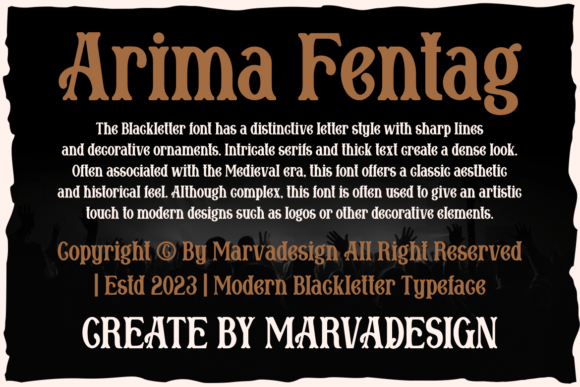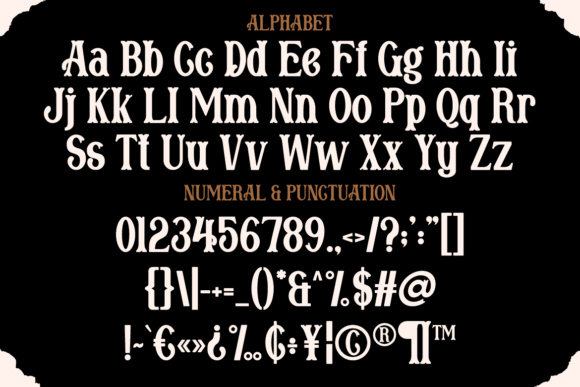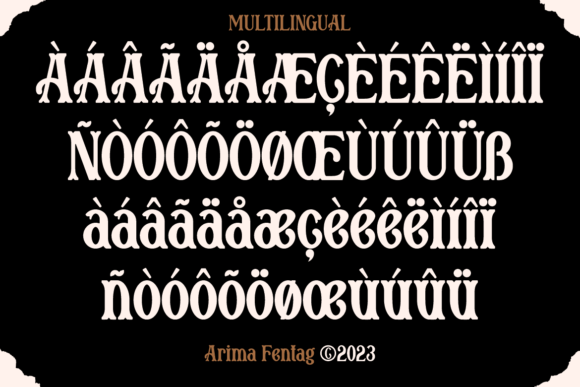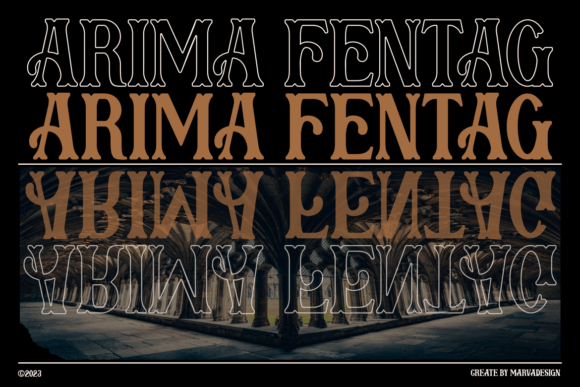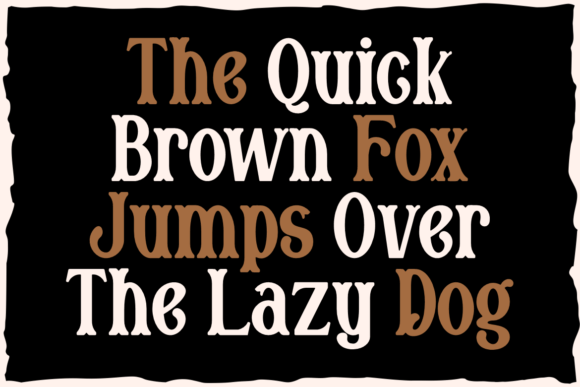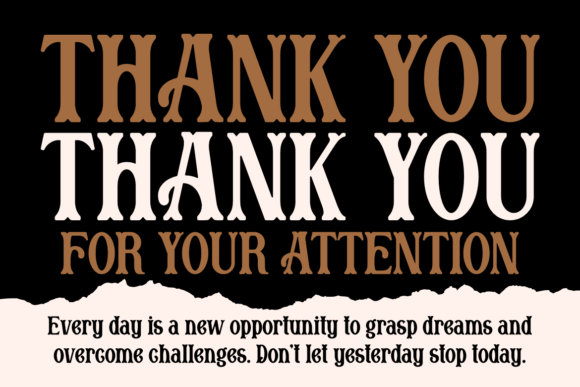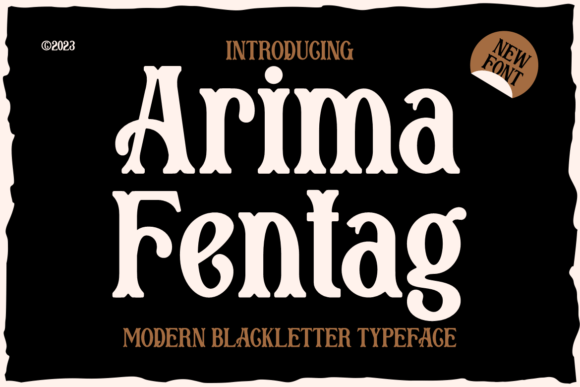
Discover the Elegance of Arima Fentag Font: A Classic Blackletter Typeface
Are you a designer or crafter looking for a unique and classic font to add a touch of elegance to your projects? Look no further than the Arima Fentag Font. This old, fancy font features two parts to each letter and boasts a classic, decorative style known as blackletter. With its Gothic or medieval writing aesthetic, Arima Fentag is perfect for those seeking to add a sense of sophistication and history to their designs.
What is Blackletter Font?
Blackletter font, also known as Gothic script, is a style of calligraphy that originated in Europe during the Middle Ages. Characterized by its dramatic, ornate, and intricate letterforms, blackletter font was widely used for formal documents, such as certificates, diplomas, and titles. The style is marked by its distinctive features, including:
- Flourishes: Intricate strokes and swashes that adorn the letters
- Thick and thin strokes: Dramatic contrast between bold and delicate lines
- Ornate details: Intricate patterns and decorations that embellish the letters
The Unique Features of Arima Fentag Font
Arima Fentag Font is a beautiful representation of the blackletter style, with its own unique twist. The font features:
- Dual-part letters: Each letter consists of two parts, creating a striking and ornate effect
- Intricate details: Delicate flourishes and patterns adorn each letter, adding to the font’s elegance
- Classic aesthetic: Arima Fentag’s design is reminiscent of traditional Gothic and medieval writing
Uses for Arima Fentag Font
Arima Fentag Font is an incredibly versatile typeface, suitable for a wide range of design projects. Here are some ideas to get you started:
- Wedding invitations and stationery: Add a touch of elegance and sophistication to your wedding designs with Arima Fentag’s classic blackletter style
- Logos and branding: Create a unique and memorable logo for your business or brand with Arima Fentag’s distinctive font
- Sign making and crafting: Use Arima Fentag to create beautiful, eye-catching signs and decorations for parties, events, or everyday use
- Digital design: Incorporate Arima Fentag into your digital designs, such as social media graphics, blog headers, or website titles
Tips for Working with Arima Fentag Font
To get the most out of Arima Fentag Font, keep the following tips in mind:
- Use it sparingly: Due to its ornate nature, Arima Fentag is best used sparingly to avoid overwhelming the design
- Pair with simple fonts: Combine Arima Fentag with simpler fonts to create visual contrast and balance
- Experiment with colors: Try Arima Fentag with different colors and textures to enhance its dramatic effect
Arima Fentag Font is a stunning example of classic blackletter design, perfect for designers and crafters seeking to add a touch of elegance and sophistication to their projects. With its unique dual-part letters, intricate details, and timeless aesthetic, Arima Fentag is sure to inspire your creativity and take your designs to the next level.
Whether you’re working on a wedding invitation, logo, or digital design, Arima Fentag Font is an excellent choice for those looking to add a sense of history and refinement to their work. So why not give it a try and discover the beauty of Arima Fentag for yourself?